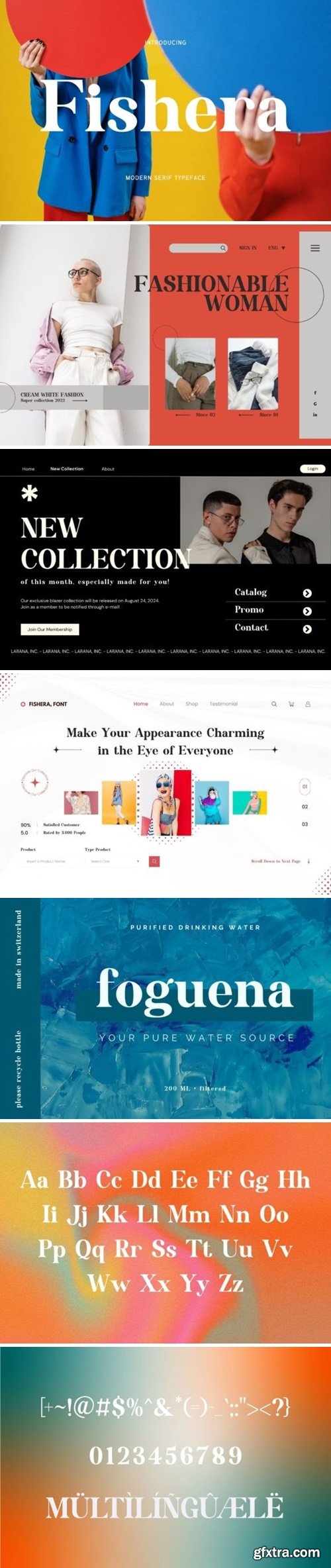
鱼耳拉字体
A beautiful series of letters is encapsulated in this ‘Fishera’ font. Neat lettering is perfect for writing needs that are modern and pleasing to the eye, there is a Modern impression but still looks Elegant when used for writing. Tidiness in the manufacture of each letter is our top priority.